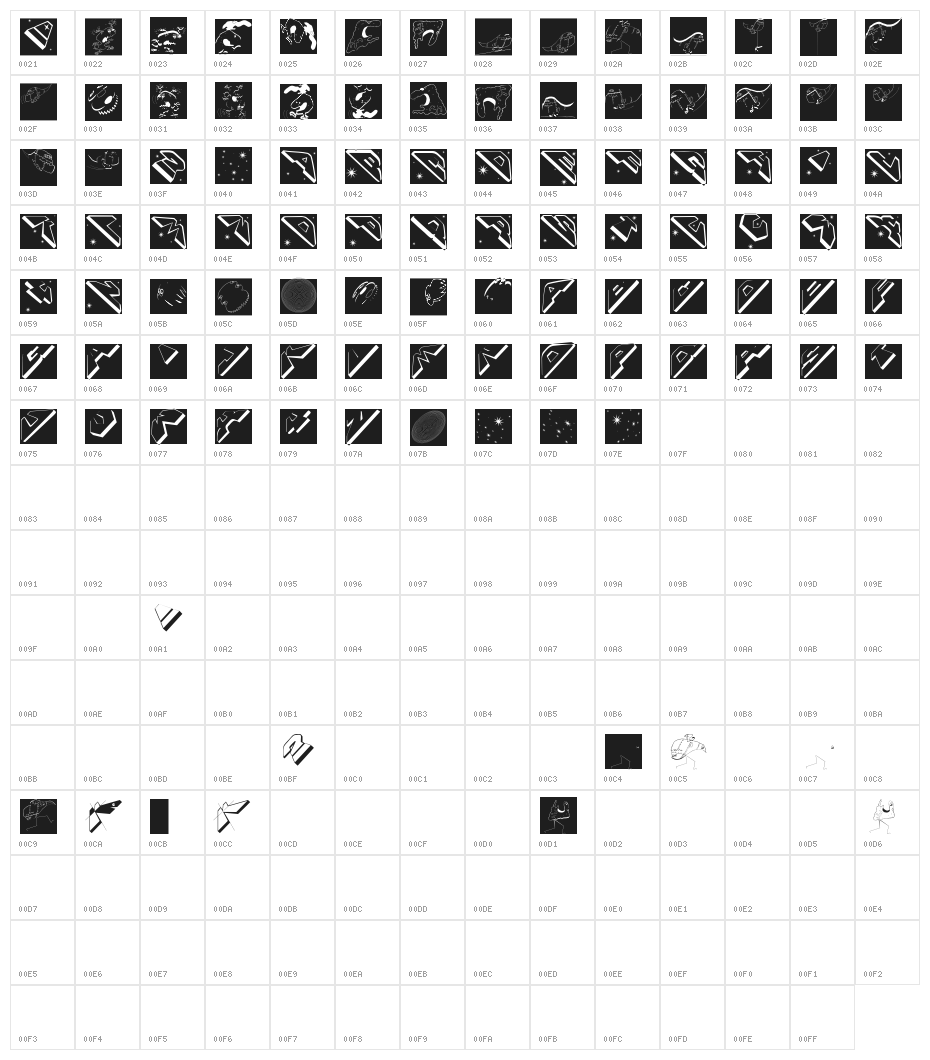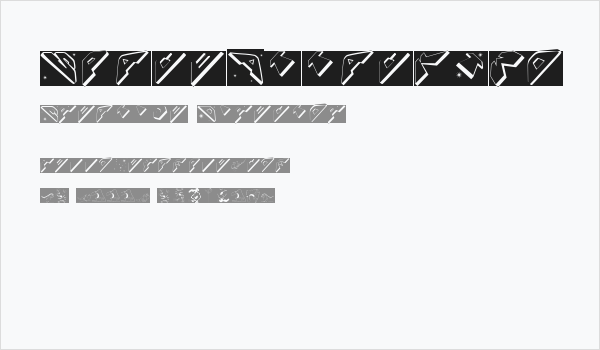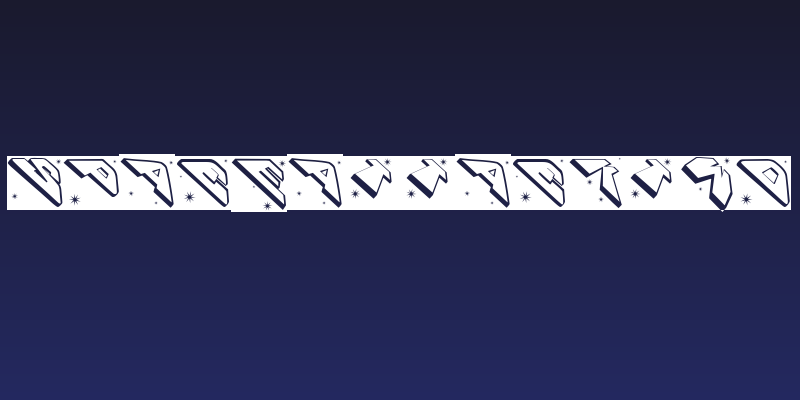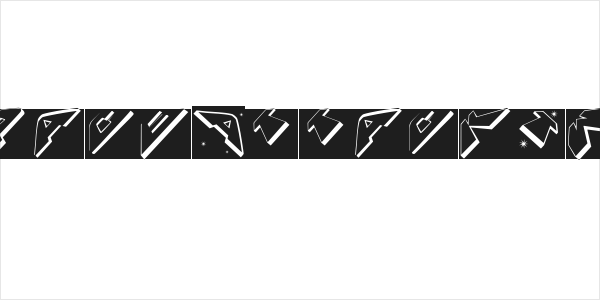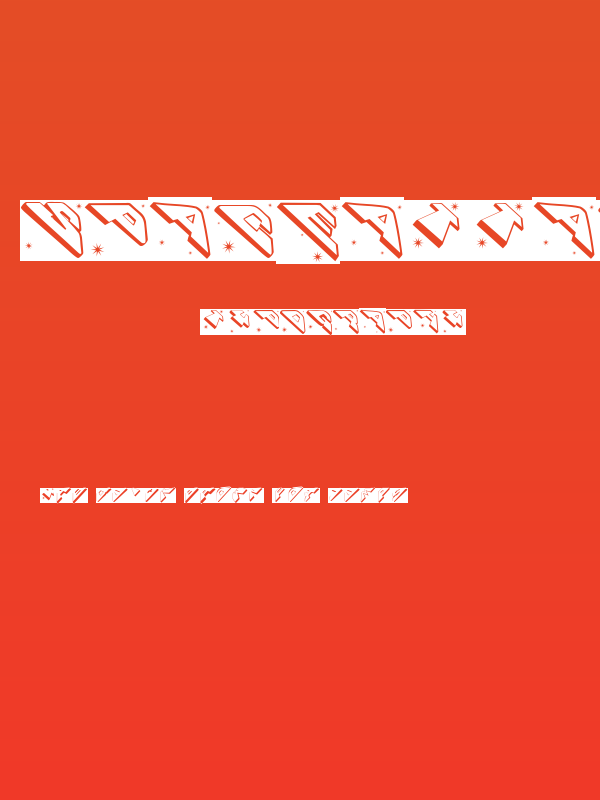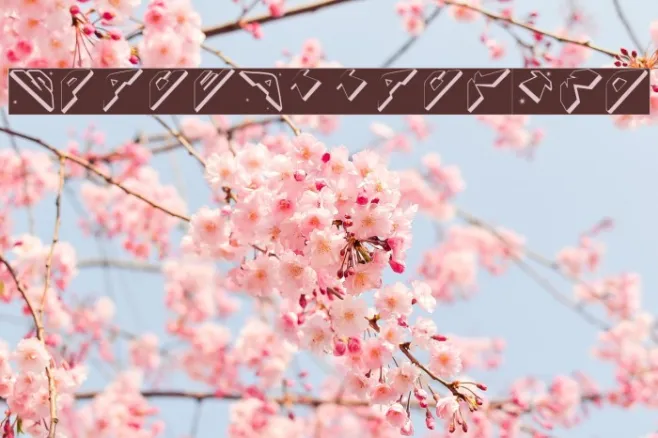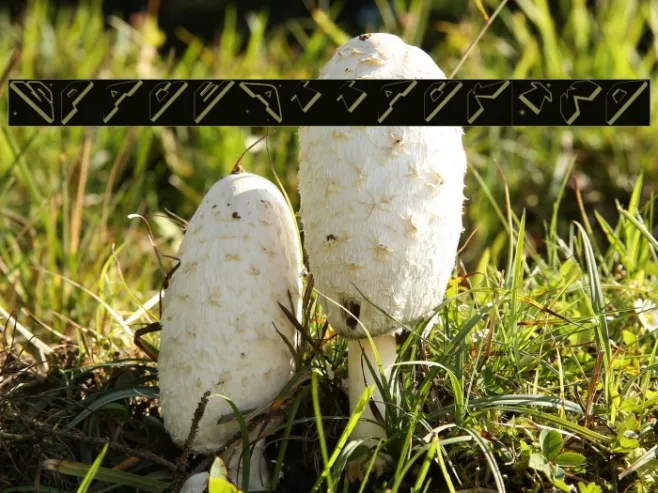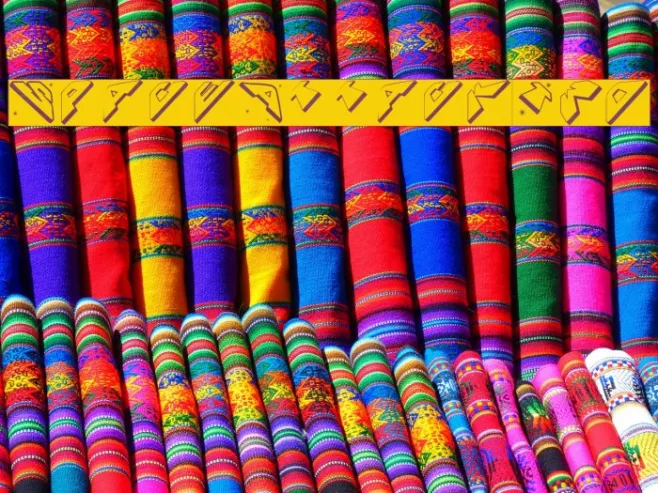
SpaceAttackTwo Font
SpaceAttackTwo Description
This font features a futuristic and playful design with a space-themed aesthetic. Each character is crafted with a three-dimensional effect, incorporating stars and planetary elements that give it a dynamic and adventurous feel. The bold outlines and geometric shapes create a sense of movement and energy, making it ideal for projects that aim to capture attention and convey a sense of excitement. The font's unique style is both decorative and functional, suitable for a variety of creative applications.
| Overall Style | Futuristic, Playful |
| Proposed Projects | Ideal for sci-fi movie posters, video game titles, space-themed event flyers, and children's book covers. |